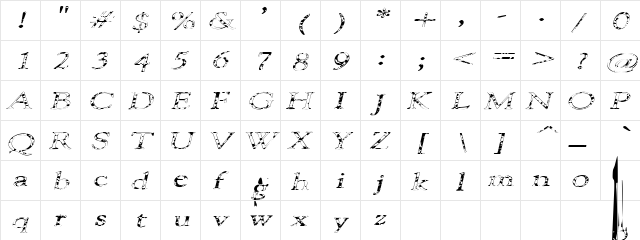
Girrafest Regular
Design Context for Girrafest Typeface
Girrafest is a composed and adaptable typeface that performs quietly and consistently across a wide range of design contexts.